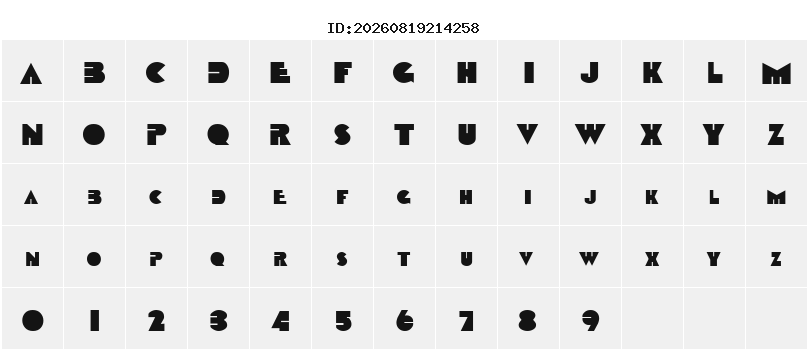
SharkTooth Preview
• Font Name: SharkTooth
• Full Font Name: SharkTooth Regular
About SharkTooth.ttf
SharkTooth.ttf is a modern, elegant sans-serif font designed for ultimate readability and visual harmony. Perfect for branding, headlines, web design, and print materials.